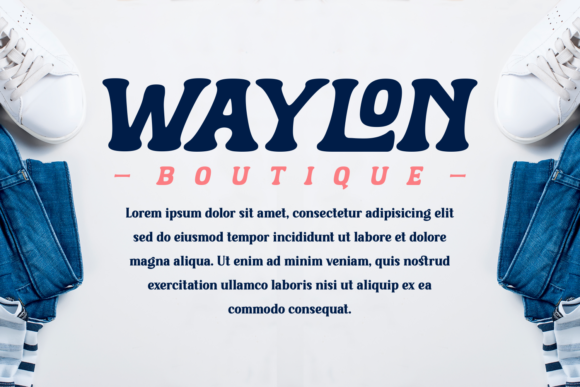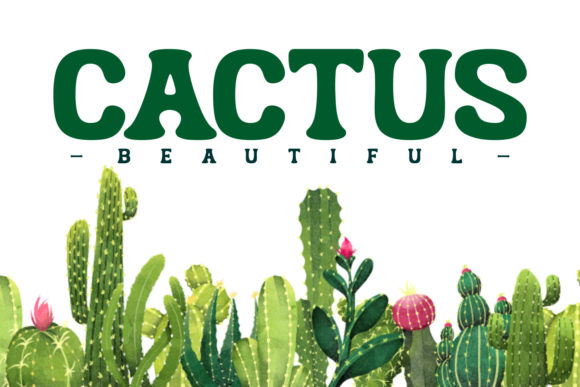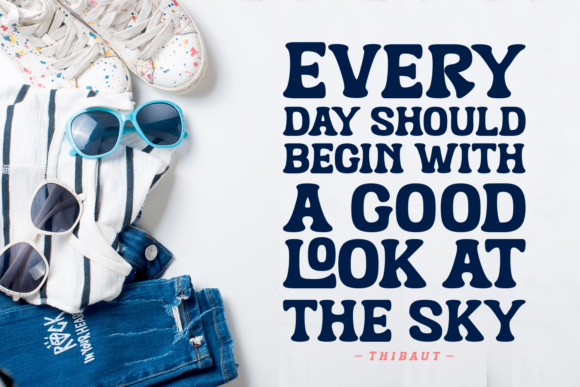
The Erlon Font: A Bold Serif Beauty for Your Creative Projects
I’ll never forget the time I was working on a branding project for a luxury skincare client. I had spent hours perfecting the logo design, but something was off. The font I had chosen just wasn’t giving me the high-end feel I was going for. That’s when I stumbled upon the Erlon font. Its bold serif lines and elegant italic version instantly elevated my design and nailed the aesthetic my client was looking for. In this article, I’ll share my love for the Erlon font, its features, and how to make the most of it in your creative projects.
An Honest Review of Erlon Font
What I Love About Erlon Font
- ✨ Beautiful bold serif lines that add a touch of sophistication to any design
- ✅ Versatile and suitable for a wide range of projects, from logos and product packaging to invitations and book covers
- 🌟 Excellent legibility, even at smaller font sizes
- 🎨 OpenType features that allow for creative exploration and customization
While the Erlon font is an excellent choice for many projects, there are a few things to keep in mind:
- 🤔 Limited availability of swashes and ornaments, which might be a drawback for designers looking for more embellishments
- ⚠️ Not ideal for body text due to its bold nature; it’s best suited for headlines, titles, and emphasis
The Story Behind Erlon Font
The Erlon font was designed by a talented type designer who drew inspiration from classic serif fonts and modern typography trends. The goal was to create a bold, elegant font that’s both versatile and stylish. The result is a beautiful duo typeface that features a regular and italic version, perfect for a wide range of creative projects.
Q: What type of projects is the Erlon font best suited for?
A: The Erlon font is perfect for logos, product packaging, invitations, branding, headlines, signage, labels, book covers, posters, quotes, and more.
Q: Is the Erlon font available in multiple languages?
A: Yes, the Erlon font supports multiple languages, including Western European languages and some Eastern European languages.